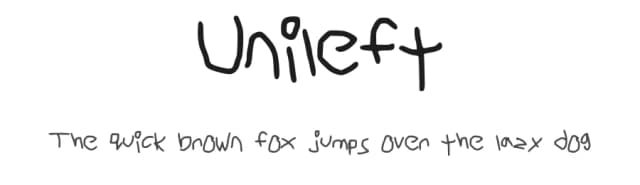
About Uni Font
Uni is a script & handwritten font designed by Uni Cornholio. It includes 143 glyphs, a medium weight, TTF (TrueType) format, and 133 languages. Uni is free to download; check the license details on this page before commercial use. Script & handwritten fonts like Uni work best for wedding invitations, greeting cards, signatures, and elegant branding.
Uni Font is a script font that shines as a display or heading face. Pair it with a clean sans-serif or serif font for body text β the contrast creates a clear hierarchy while the two styles stay balanced and easy to read.
Uni Font
Uni Font is a script handwritten typeface by Uni Cornholio, ideal for logos, invitations, branding, and creative projects.